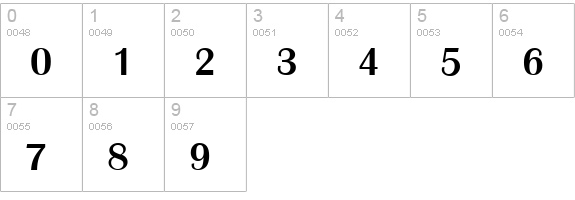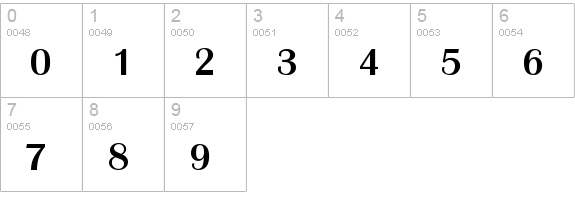
Bristol-Medium-Regular is a balanced, medium-weight variant in the Bristol typeface family \xE2\x80\x94 well suited to sub-headlines, navigation, and balanced editorial work.
Bristol-Medium-Regular font is a versatile and modern typeface that exudes sophistication and elegance. With its clean lines and balanced proportions, this font is perfect for a wide range of design projects, from branding to editorial design. The medium weight of the font strikes the perfect balance between readability and style, making it suitable for both headlines and body text. What sets Bristol-Medium-Regular font apart is that it is available for free download at FontsMarket.com. This means that designers and creatives can easily access this high-quality font without any cost, making it a valuable addition to their font library. Whether you're working on a print project or a digital design, Bristol-Medium-Regular font will help elevate your work and give it a polished and professional look. Don't miss out on the opportunity to enhance your designs with Bristol-Medium-Regular font. Download it for free today at FontsMarket.com and start creating stunning typographic compositions that stand out from the crowd.